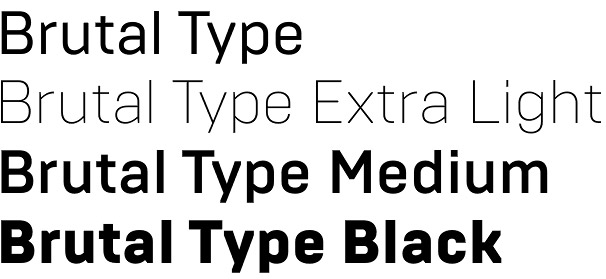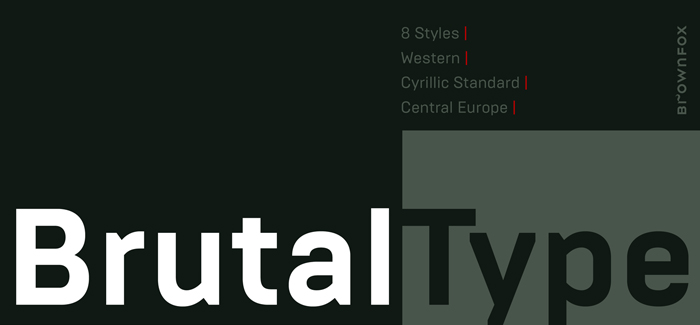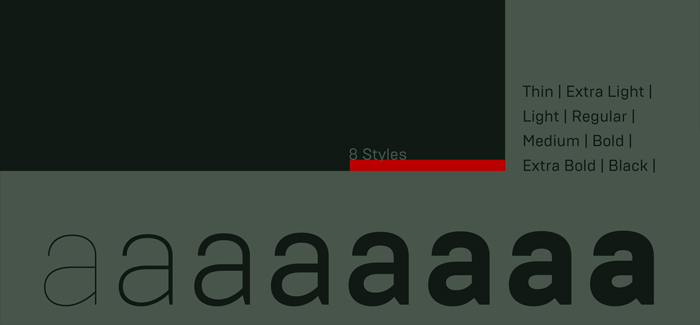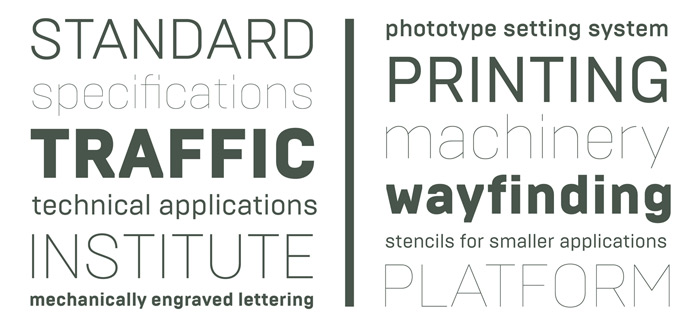
Brutal Type font
Brutal Type font family by Brownfox is designed in 8 sans-serif weights. Starting from Thin to Black Brutal Type has a lot of thing to show off beyond its obvious simplicity – it is an original typeface based on classic geometry of DIN typeface but flavored with a lot of personality and individual touch in every curve. Brutal Type font has universal use but most of it will be a family preferred for editorial design, body texts, strong headlines, annual reports, CD covers and stationery. Among all its OpenType features we are happy to find and excellent working Cyrillic along with Central and Western European diacritics, stylistic alternates, ligatures etc – all these fully available in OpenType-savvy software. Brutal Type does not support italics at the moment and though we don’t find this as a problem, we are anticipating to see them designed for next updated edition. Hopefully very soon.
Brutal Type font is designed by Gayaneh Bagdasaryan, Dmitry Rastvortsev for Brownfox Type foundry. Check also their Geometria font. Geometria font family won Granshan 2013 award.
Designers: Gayaneh Bagdasaryan, Dmitry Rastvortsev
Publisher: Brownfox